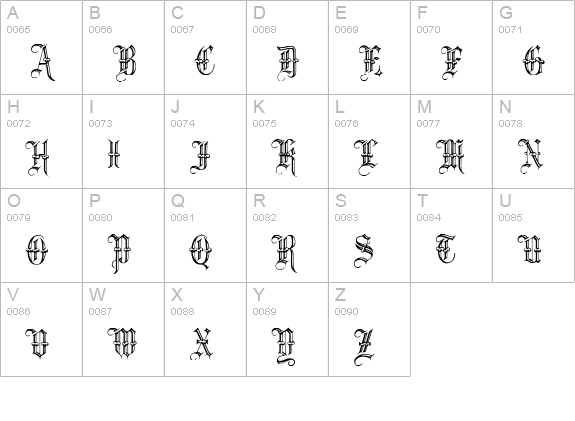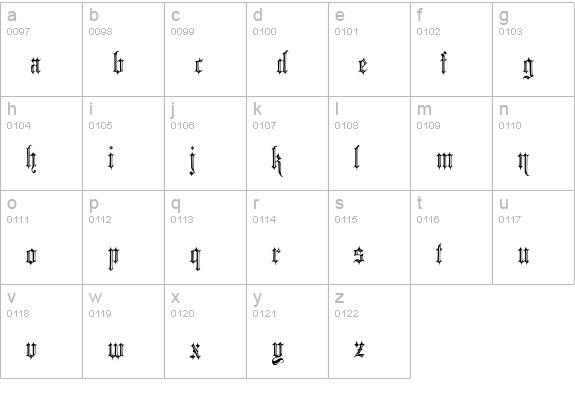
Minster No 5 Font Details
Minster No 5 font is a timeless and elegant typeface that exudes sophistication and charm. With its clean lines and classic design, this font is perfect for adding a touch of class to any project. The versatility of Minster No 5 makes it ideal for a wide range of applications, from invitations to branding materials. What sets Minster No 5 font apart is that it is available for free download at FontsMarket.com. This means that you can easily access this beautiful font and use it in your projects without any cost. Whether you're a designer looking for a new addition to your font library or an individual wanting to enhance your personal projects, Minster No 5 font is a fantastic choice that won't break the bank. Download it today and elevate your designs with this stunning typeface.